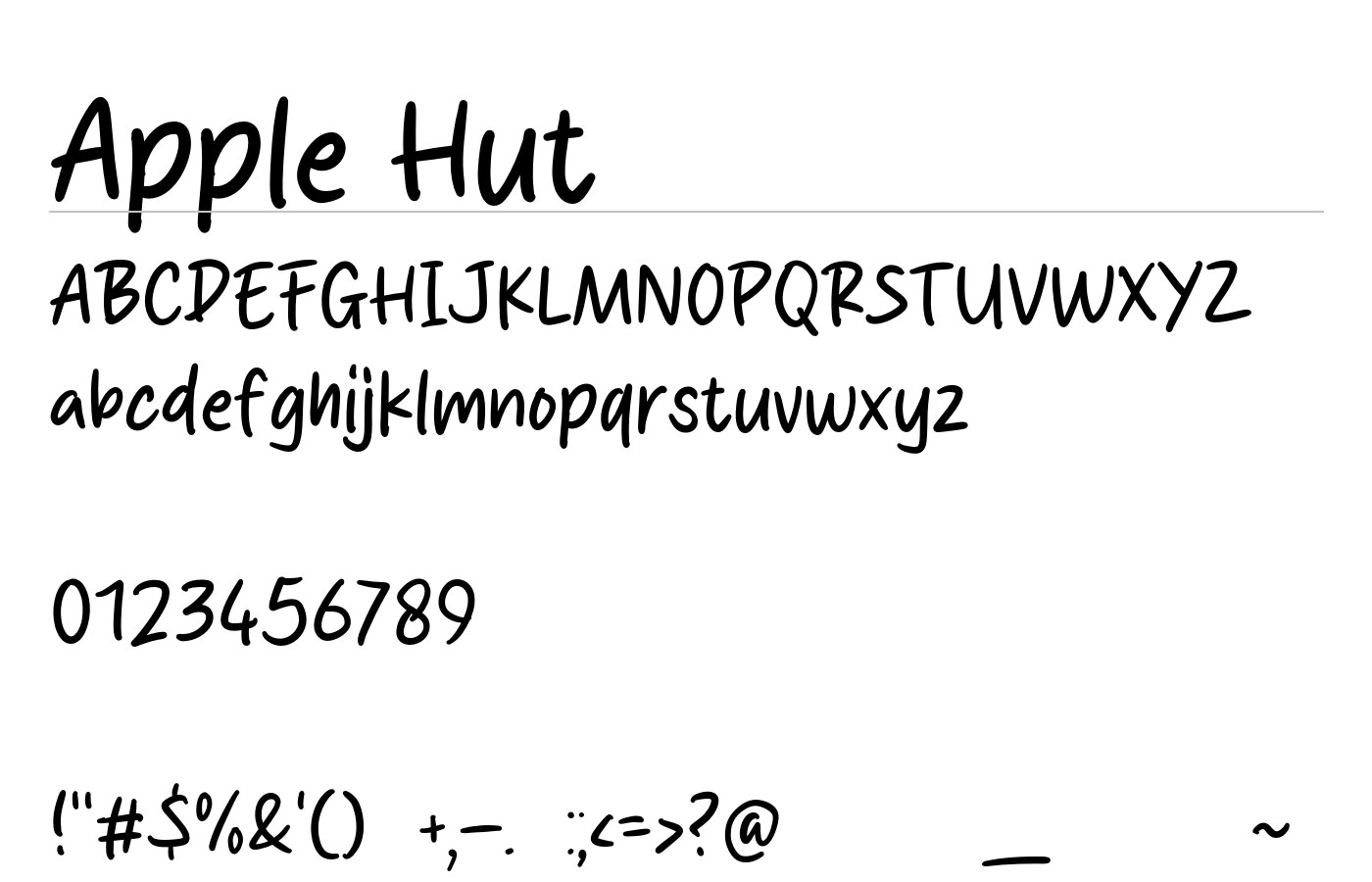
Apple Hut is a casual, handwritten-style font that feels friendly and approachable. Its smooth, slightly irregular strokes and rounded letterforms create a natural, human touch, making it ideal for informal branding, personal projects, and playful designs. This font works well in headlines, logos, and creative content where a warm, inviting personality is desired.
Apple Hut Font
About Apple Hut Font